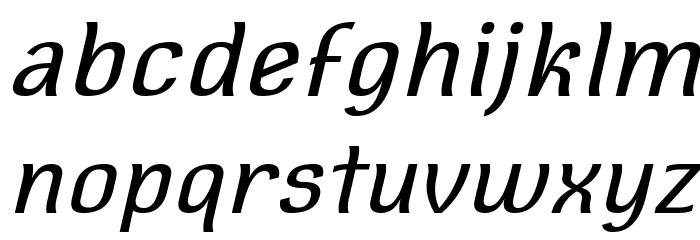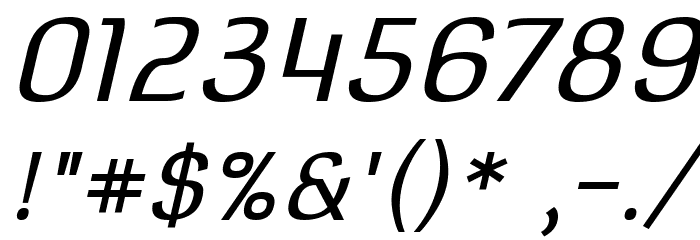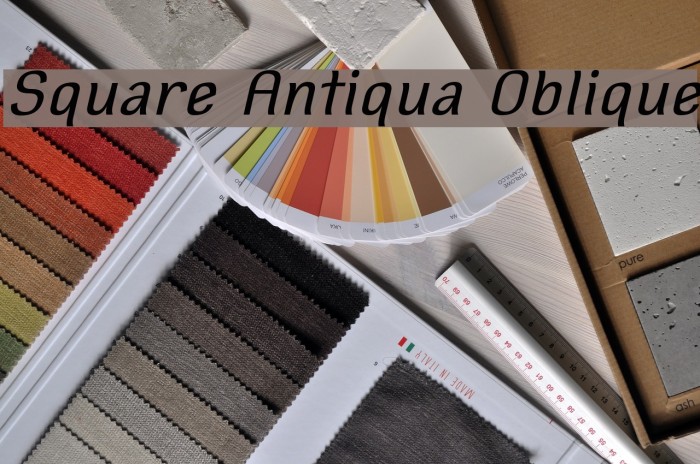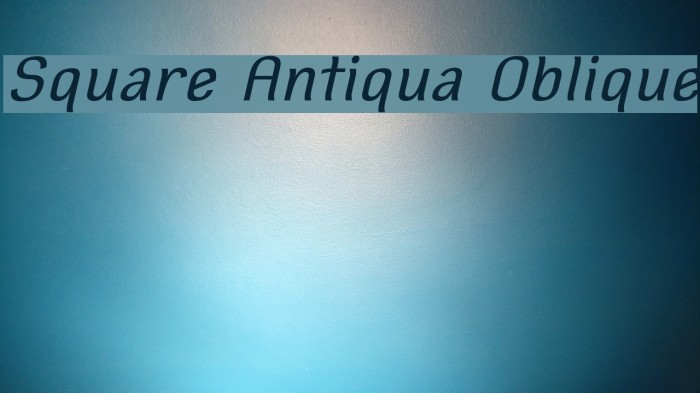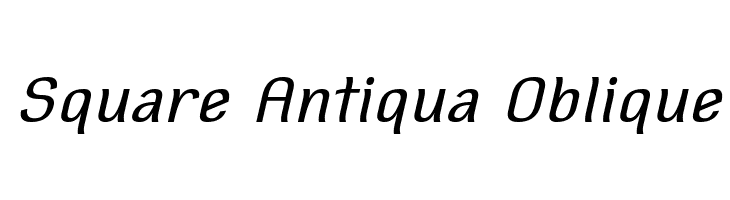
Square Antiqua Oblique Font
This font features an oblique style with a modern twist, characterized by its clean and slightly slanted letterforms. The uppercase and lowercase letters maintain a consistent slant, providing a sense of motion and dynamism. The numerals are clear and legible, matching the overall style of the alphabet. Special characters are well-integrated, ensuring versatility in various design applications. The font's smooth curves and uniform stroke width contribute to its sleek appearance, making it suitable for contemporary designs.
A modern oblique font with clean, slanted letterforms and uniform stroke width.